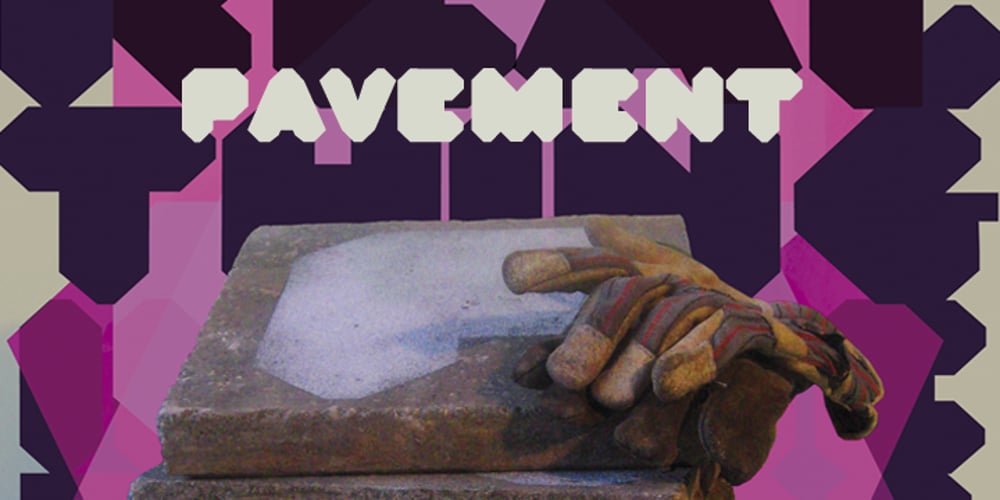
Pavement
Pavement font
Pavement Font Family was designed by Johan Manschot and published by ECHT! Johan Manschot. Pavement contains 1 styles and family package options. Pavement is a display typeface, based on the roughness and hardness of a street tile. I wanted to make a font with some real streetvibes, so it can easily be used for all kind of street cultures like music, (stencil) graffiti, street-art and fashion.